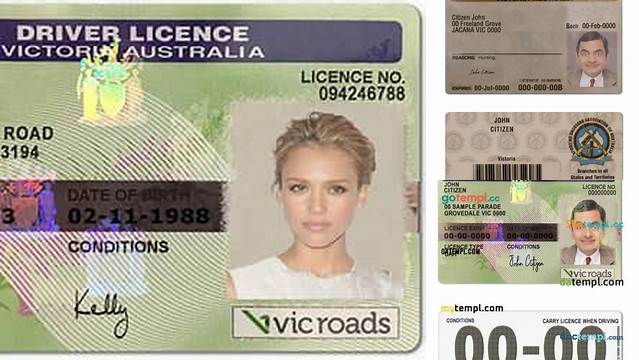
Victorian Driver's License Font: Where To Find It?
Understanding the Importance of Fonts in Victorian Driver's Licences
When it comes to official documents like a Victorian driver's licence, the font used isn't just a matter of aesthetics; it's a crucial element of security and legibility. The specific font chosen plays a significant role in preventing fraud and ensuring that the information on the licence is easily readable. Think about it, guys – every character, every number, is meticulously designed to serve a purpose. The font needs to be clear enough for law enforcement officers and other authorities to quickly verify the details, especially under various lighting conditions. This is why the Victorian driver's licence font isn't some random typeface; it's a carefully selected design that meets stringent requirements for clarity and security. Beyond legibility, the font also contributes to the overall integrity of the document. A standardized font makes it more difficult for counterfeiters to replicate a genuine licence. If you've ever wondered why government-issued IDs look so official, a big part of that is down to the font. The unique characteristics of the font, such as the shape of the letters and the spacing between them, are hard to mimic perfectly. This makes it easier to spot a fake. The use of a specific, non-common font acts as a deterrent, adding another layer of security to protect against identity theft and other fraudulent activities. So, while it might seem like a small detail, the font on your Victorian driver's licence is a critical component of its design, ensuring both readability and security. The Victorian driver's licence font is not just about how it looks; it's about making sure your identification is safe and reliable. It's a blend of functionality and security that protects your personal information and helps maintain the integrity of official documents. It's interesting to consider how much thought goes into something we often take for granted, but the font is a silent guardian of your identity, working behind the scenes to keep things secure. That's why finding the correct Victorian driver's licence font is more than just a design choice; it's a necessity for maintaining the authenticity and security of important documents.
Why You Can't Just Download the Victorian Driver's Licence Font
Okay, so you're looking to download the Victorian driver's licence font, huh? I get it; maybe you're working on a project, or you're just curious. But here's the deal: you can't just find this font floating around online for free. There's a very good reason for that, and it all boils down to security. Imagine if the exact font used on official Victorian driver's licences was readily available to anyone. It would be a counterfeiter's dream! People could easily create fake IDs that look incredibly authentic, making it much harder for authorities to spot them. This isn't just about someone trying to get into a bar underage; it's about serious crimes like identity theft and fraud. That's why the Victorian government and other licensing authorities take the security of their fonts very seriously. The font used on a driver's licence is a key part of its security features, just like the holograms, microprinting, and other anti-counterfeiting measures. By keeping the font restricted, they make it much more difficult for criminals to produce convincing fakes. Think of it like this: the font is like a secret code. If everyone knows the code, it's not a secret anymore. The same goes for the font on a driver's licence. If it were freely available, the security of the entire system would be compromised. So, while it might be tempting to try and download this font, it's important to understand why it's not accessible. It's not about being secretive or making things difficult for regular folks; it's about protecting the integrity of the licence and preventing fraud. The font is a critical part of the security infrastructure, and keeping it under wraps is essential for maintaining public safety. Trying to replicate official documents like a Victorian driver's licence is not only difficult but also illegal. The consequences for counterfeiting official documents can be severe, including hefty fines and even imprisonment. So, it's definitely not worth the risk. Instead, focus on using legitimate fonts for your projects and respect the security measures put in place to protect official documents. The Victorian driver's licence font is a vital part of that security, and keeping it out of the wrong hands is crucial.
Alternatives to Downloading the Exact Font
Okay, so you can't just download the exact Victorian driver's licence font. We've established that it's a no-go for security reasons. But what if you need a font that's similar for a project? Don't worry, guys, there are definitely alternatives out there. You might be surprised by the number of fonts that have a similar look and feel to the one used on the licence. The key is to focus on fonts that are clear, sans-serif, and have a modern, official appearance. Think about what makes the Victorian driver's licence font so effective. It's clean, easy to read, and has a certain authority to it. When you're searching for alternatives, look for those same qualities. Arial, Helvetica, and Verdana are all classic choices that offer excellent legibility. They're widely available and can be used in a variety of applications. These fonts are often used in official documents and signage because they are designed for clarity and readability. They don't have any extra flourishes or decorative elements that could make them difficult to read, especially in small sizes or under different lighting conditions. Another option is to explore fonts that are specifically designed for OCR (Optical Character Recognition). These fonts are created to be easily read by machines, which means they also tend to be very clear and legible for humans. Fonts like OCR-A and OCR-B have a distinctive look that is often associated with official documents and forms. They might be a good choice if you're looking for a font that has a technical or official feel. You can also check out online font libraries like Google Fonts, Adobe Fonts, and MyFonts. These sites offer a wide range of fonts, both free and paid, that you can browse and download. Use the search filters to narrow down your options by style, weight, and other characteristics. You might be able to find a font that's a close match to the Victorian driver's licence font without compromising security. Remember, the goal is to find a font that is clear, legible, and appropriate for your project. While you won't be able to get the exact font used on the licence, there are plenty of excellent alternatives that will do the job just as well. Focus on finding a font that meets your needs and maintains a professional appearance. So, keep searching, and you're sure to find the perfect font for your project.
Conclusion: Respecting Security and Finding Alternatives
So, to wrap things up, guys, let's reiterate the key takeaways here. You can't download the Victorian driver's licence font for free, and that's a good thing! It's a crucial security measure that helps prevent fraud and protects the integrity of official documents. The font used on a driver's licence isn't just a random typeface; it's a carefully chosen design that plays a vital role in ensuring legibility and preventing counterfeiting. Trying to get your hands on the exact font is not only impossible but also potentially illegal. Replicating official documents like a driver's licence is a serious crime with severe consequences, including hefty fines and even imprisonment. It's simply not worth the risk. Instead of trying to download the Victorian driver's licence font, focus on finding legitimate alternatives. There are plenty of fonts out there that have a similar look and feel, and they're perfectly safe and legal to use. Look for fonts that are clear, sans-serif, and have a professional appearance. Arial, Helvetica, and Verdana are all excellent choices. You can also explore online font libraries like Google Fonts, Adobe Fonts, and MyFonts to find a wide range of options. When choosing a font for your project, consider the overall tone and message you want to convey. A font that is too decorative or unusual might not be appropriate for official documents or professional communications. Stick to fonts that are easy to read and have a clean, modern look. Remember, the goal is to find a font that meets your needs without compromising security or breaking the law. By respecting the security measures in place to protect official documents, you're contributing to a safer and more secure society. So, be responsible, be creative, and find the perfect font for your project using legitimate resources. There are plenty of great options out there, and you don't need to risk your reputation or your freedom by trying to replicate the Victorian driver's licence font. Always prioritize legality and ethics in your projects, and you'll be sure to create something amazing without any negative consequences. The world of fonts is vast and exciting, so explore your options and find the perfect fit for your needs.